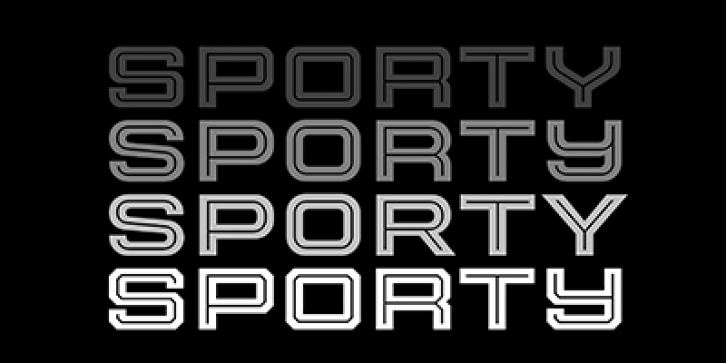
We love sports – like billions of fans all over the world – but in Argentina, we really love fútbol (soccer). Fútbol is part of our culture: it makes our hearts’ race and our pulses quicken, it inspires screams of joy and screams of anguish, and it has been the cause of more than a few heated conversations amongst friends. So you can imagine our delight when, in recent years, a local team’s fútbol jersey used a Sudtipos font; it got us thinking about designing a font that explicitly had sports in mind yet still had the versatility to work for other types of projects.
Sporty has a geometric and modular structure with many potential applications that far exceed jerseys, score boards and stadium wayfinding. Its flexibility is evident when examining its four style – from a square style to a rounded one – as well as the Shadow and Inline options. Each of the styles also comes with a set of miscellaneous shapes including modular banners, plates and arrows. Sporty comes in 3 widths – Condensed, Regular and Expanded – and 7 weights that equate to a total of 39 fonts.